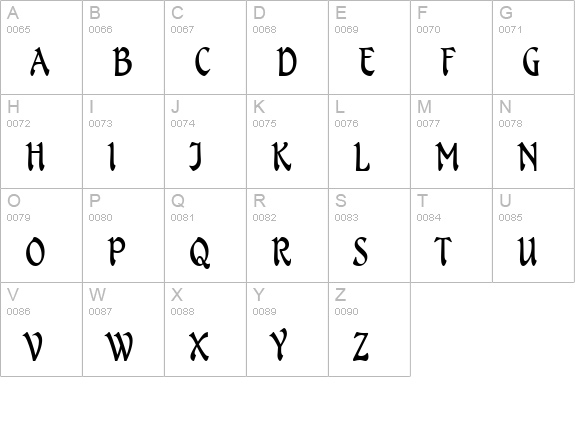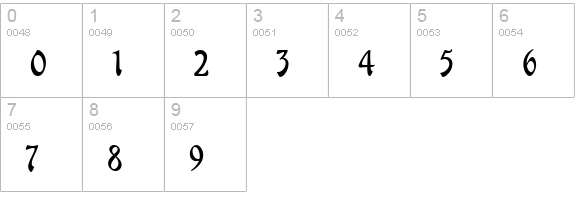
Tarragon ICG Font Details
Tarragon ICG font is a captivating and versatile typeface that exudes elegance and sophistication. Its sleek and modern design makes it perfect for a wide range of creative projects, from branding and advertising to editorial and web design. With its clean lines and balanced proportions, Tarragon ICG font offers a sense of harmony and professionalism. Its distinctive letterforms are carefully crafted to ensure legibility and readability across various mediums and sizes. What sets Tarragon ICG font apart is its unique blend of classic and contemporary elements. The font strikes a perfect balance between traditional serifs and modern simplicity, resulting in a timeless aesthetic that effortlessly captures attention. One of the most remarkable aspects of Tarragon ICG font is that it is freely available to download at FontsMarket.com. This means that designers and creatives can access this exceptional typeface without any cost, making it an incredibly valuable resource for both personal and commercial projects. Whether you're designing a logo, creating a magazine layout, or crafting a website, Tarragon ICG font will elevate your work to new heights. Its versatility and elegance make it suitable for a wide range of applications, enabling you to make a lasting impression with your typography. Don't miss the opportunity to enhance your designs with the beautiful Tarragon ICG font. Visit FontsMarket.com today and download this exceptional typeface for free. Elevate your design projects and unleash your creativity with Tarragon ICG font.